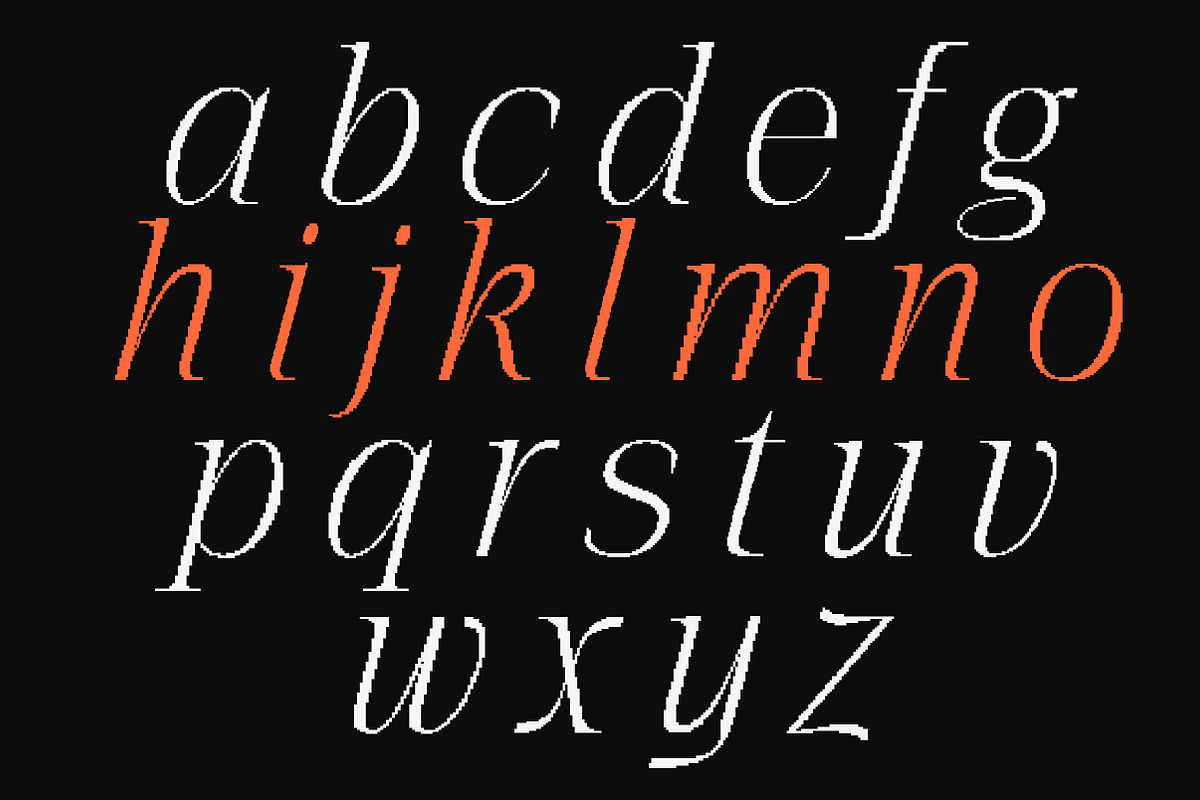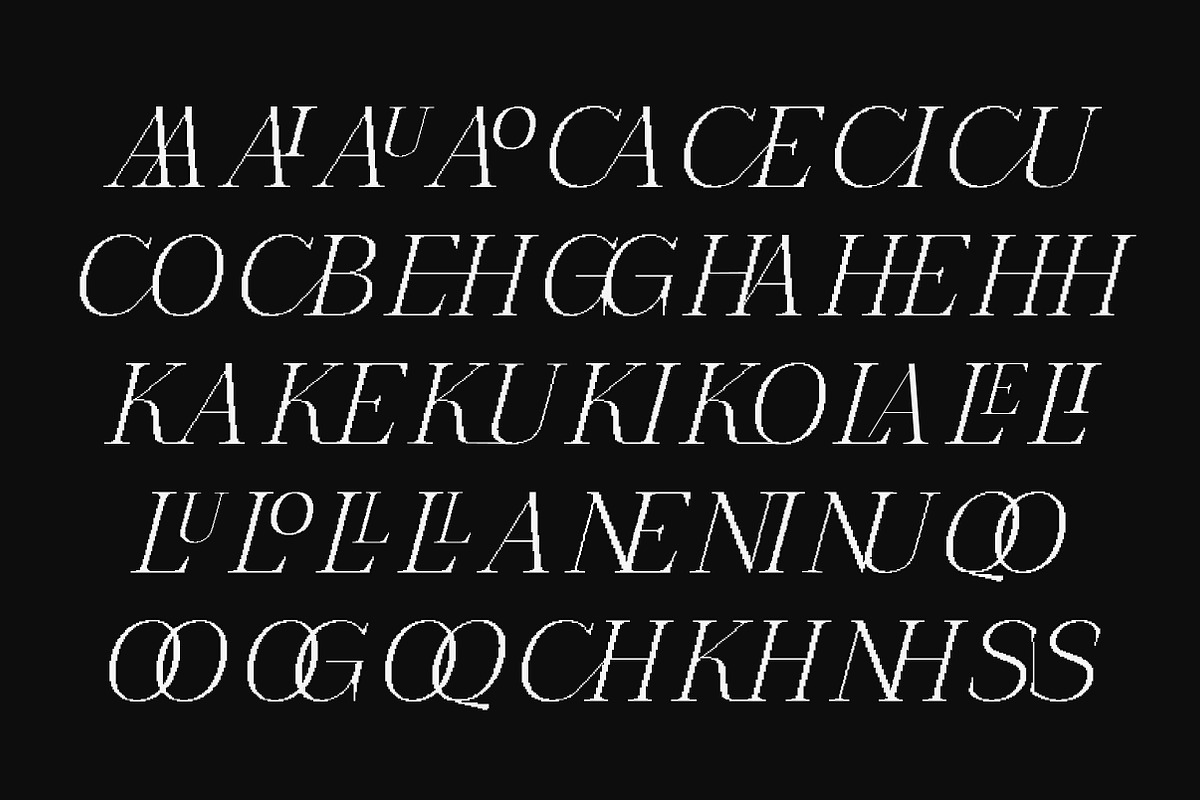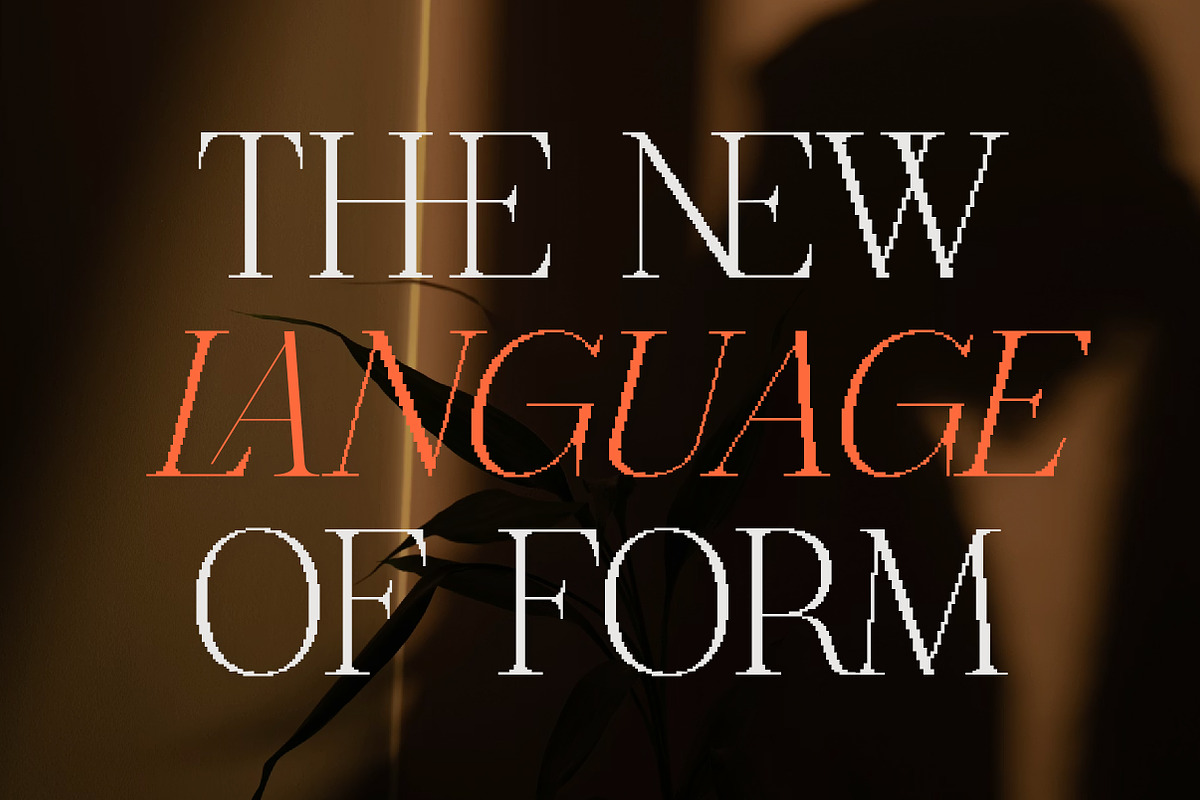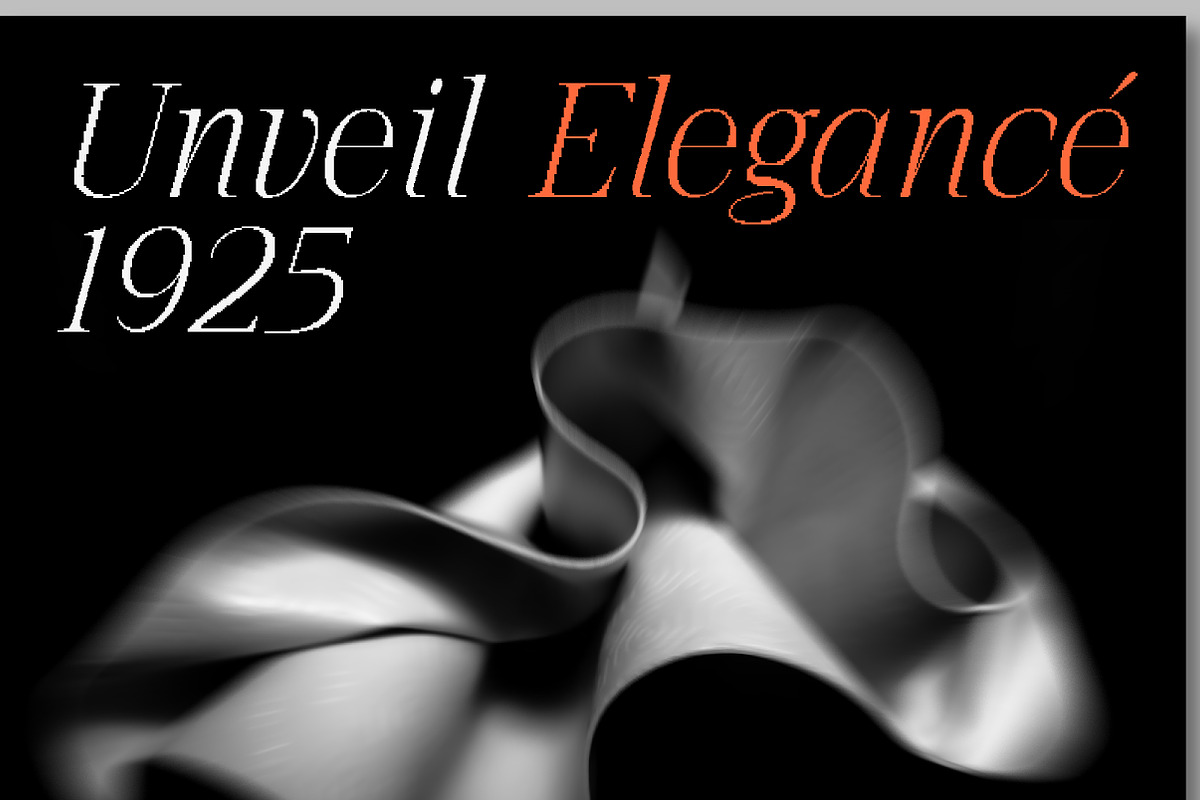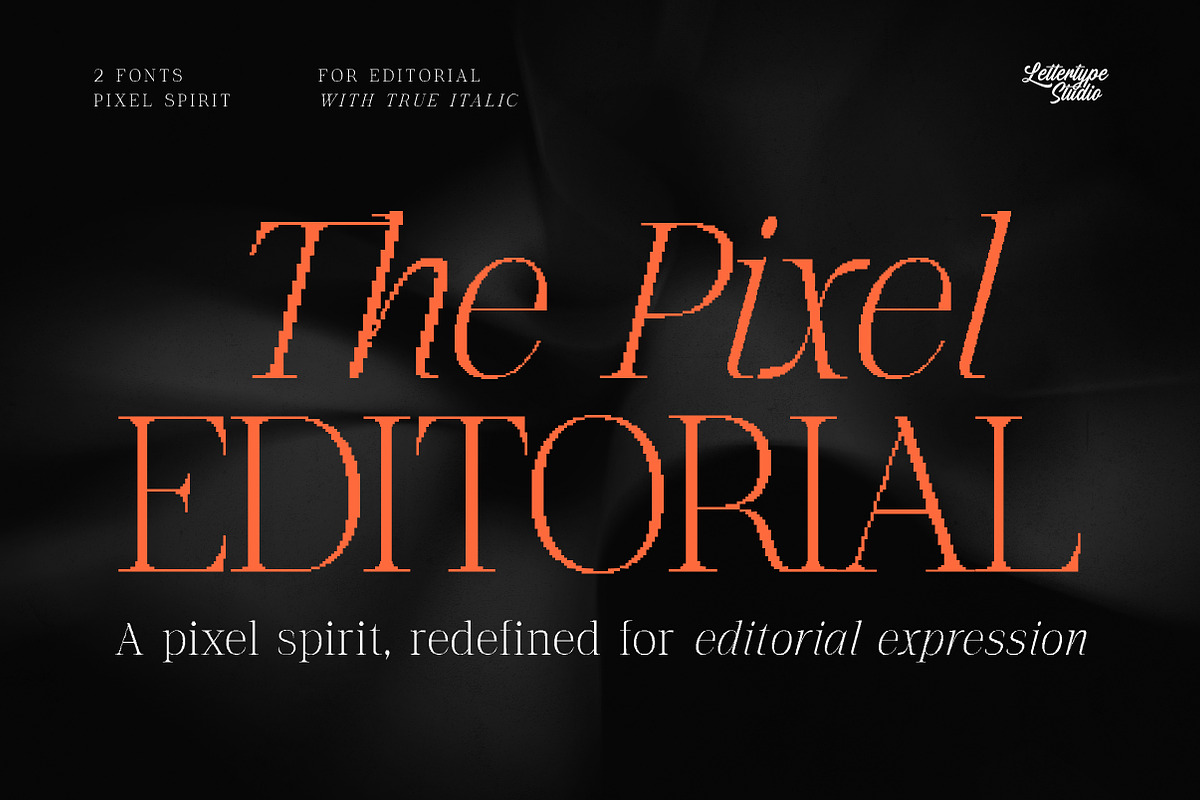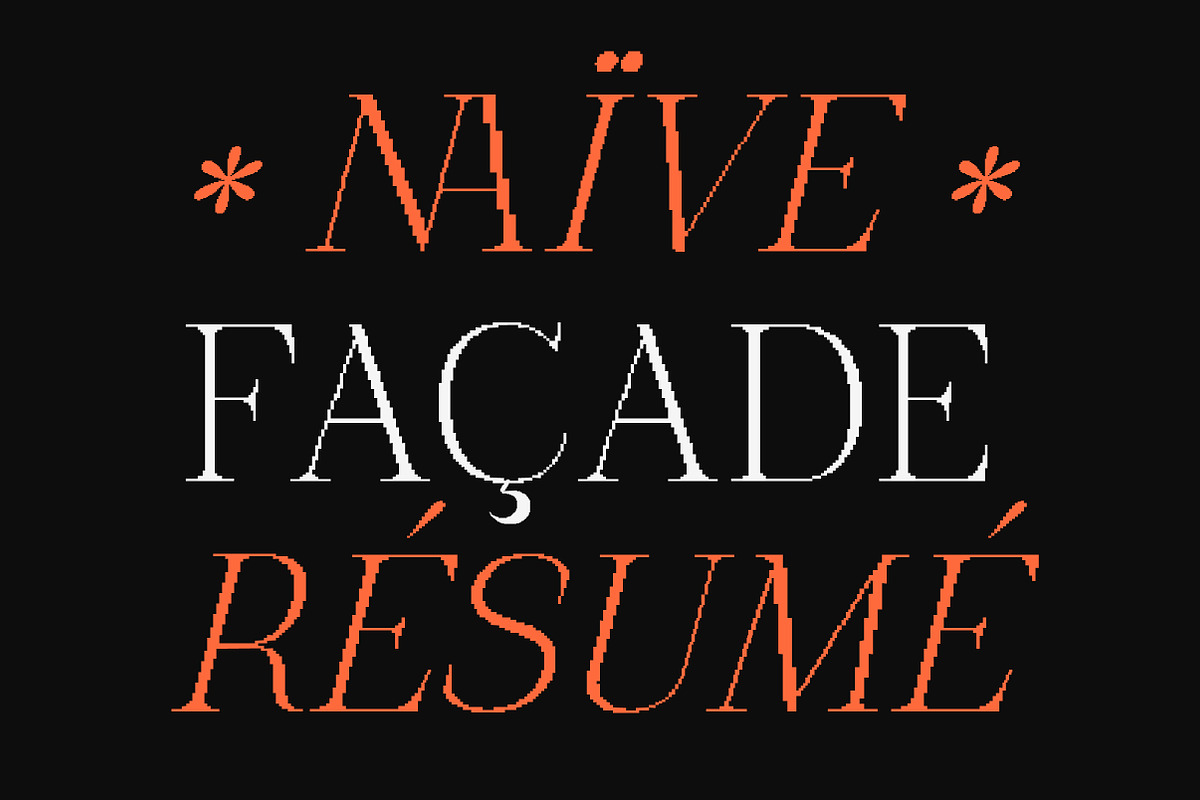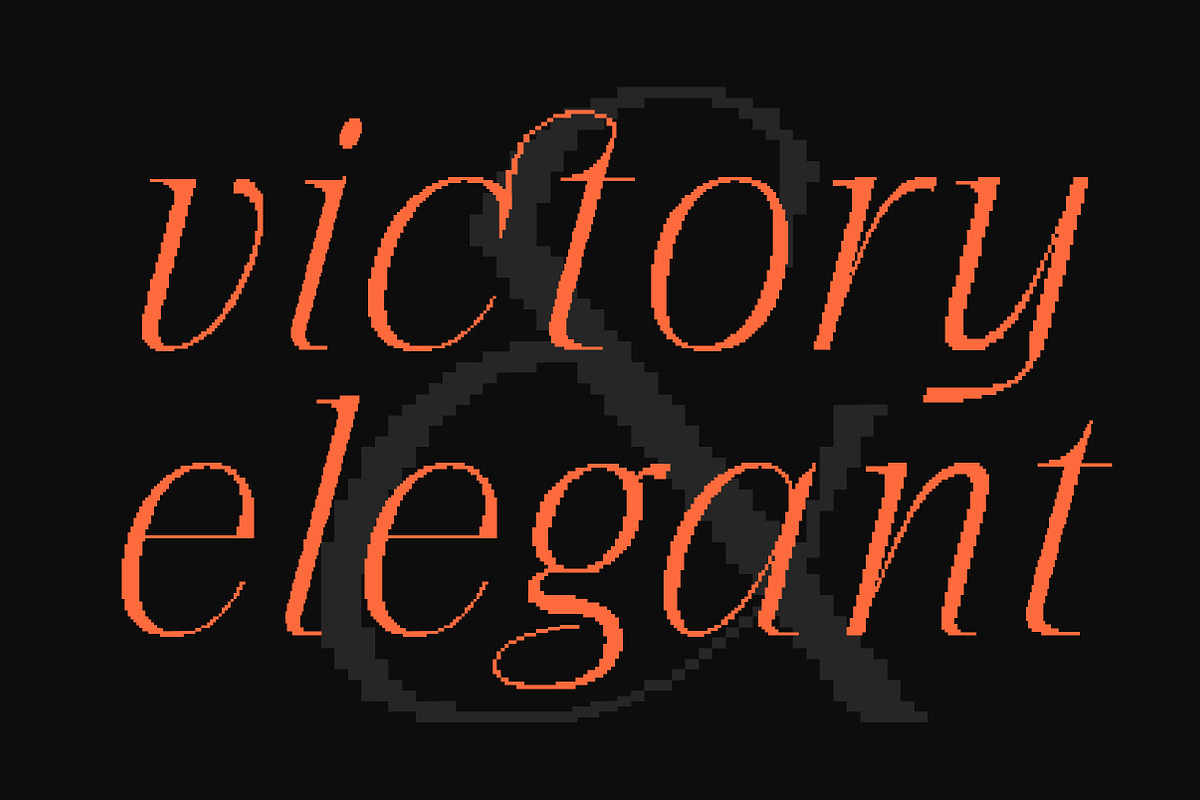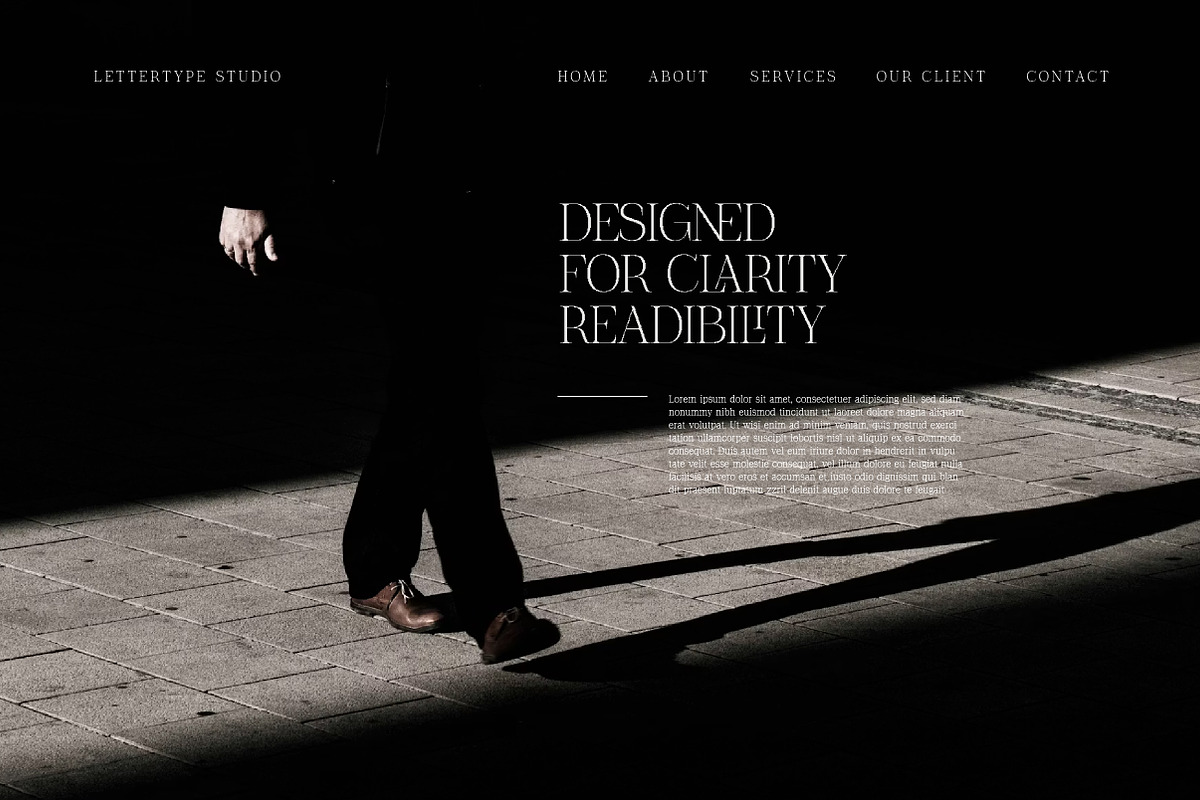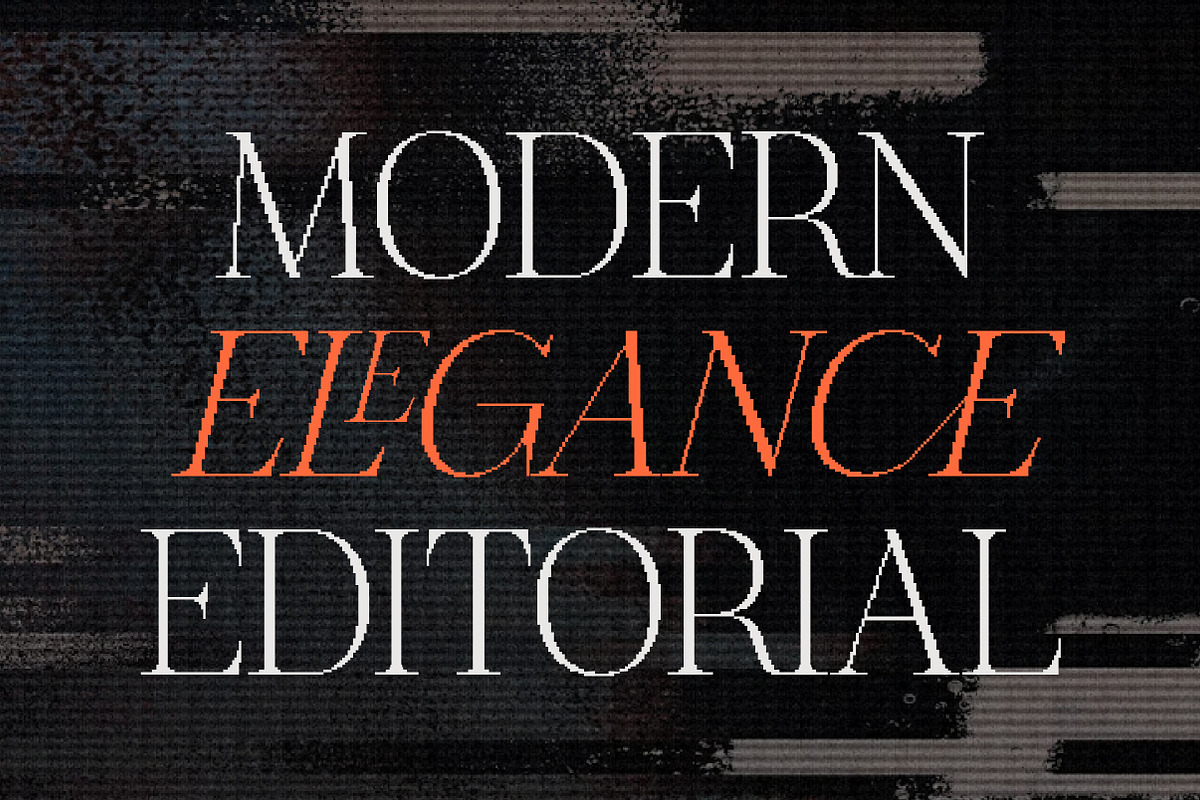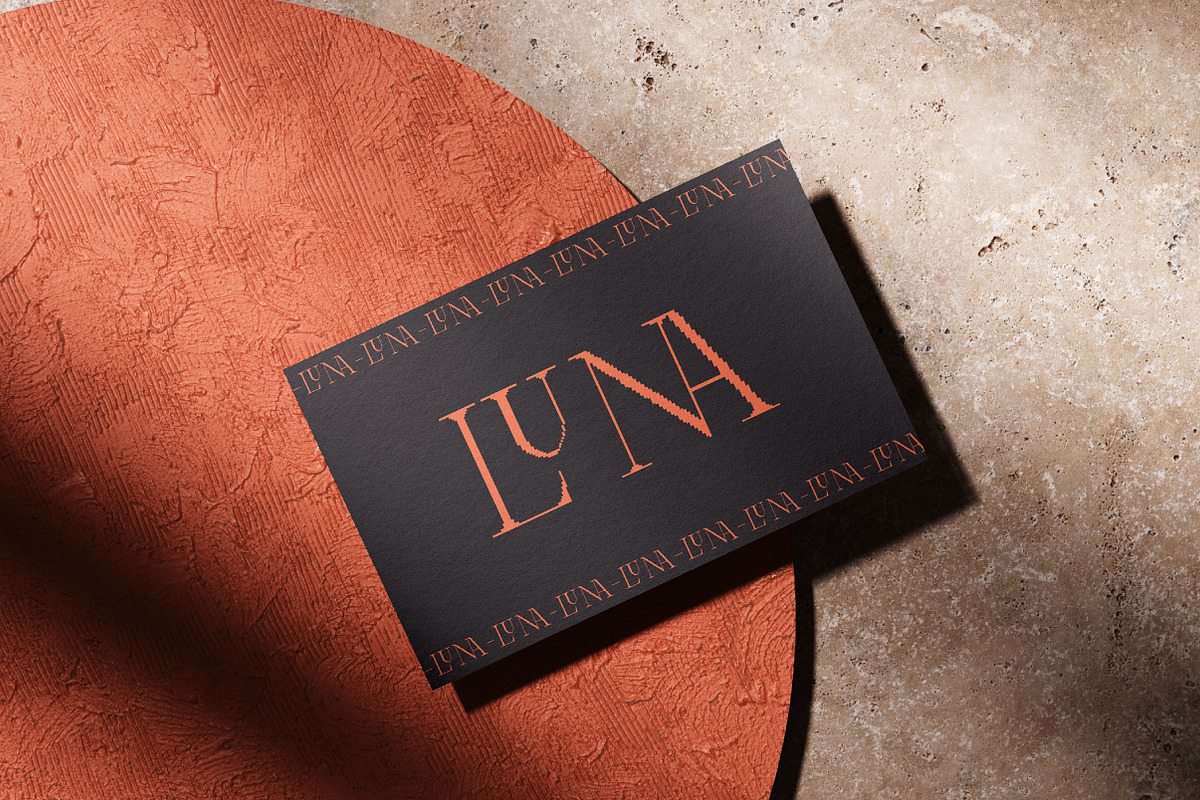
The Pixel Editorial – Modern Serif
The Pixel Editorial is a contemporary serif typeface that reinterprets pixel aesthetics through an editorial lens. Built on an integer-based grid system, it preserves the crisp, sharp rendering of pixel typography while introducing controlled irregularities—subtle overshoots, varied proportions, and intentional inconsistencies that create a more organic visual rhythm.
Rather than adhering to rigid bitmap conventions, The Pixel Editorial embraces a hybrid approach: structured yet expressive, precise yet human. This makes it highly suitable for modern branding, editorial layouts, and digital design where character and clarity need to coexist without feeling overly mechanical.
The Pixel Editorial Features:
- 2 Styles
- Upright & True Italic
- 520 Glyphs Total
- 270+ Languages Support
- Editorial layouts with a modern experimental tone
- Branding that balances precision and personality
- Poster and headline typography with sharp presence
- Digital design requiring crisp rendering and unique character
- Creative direction that embraces structured imperfection